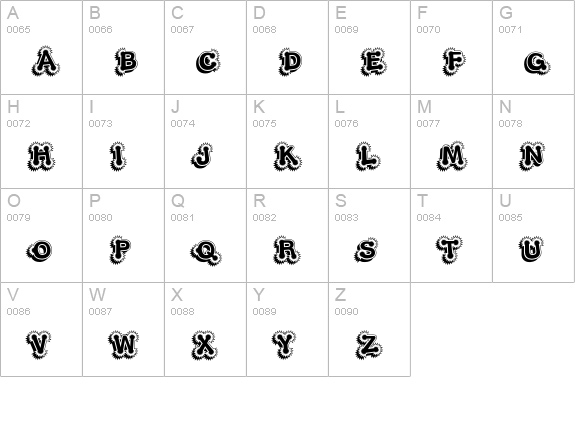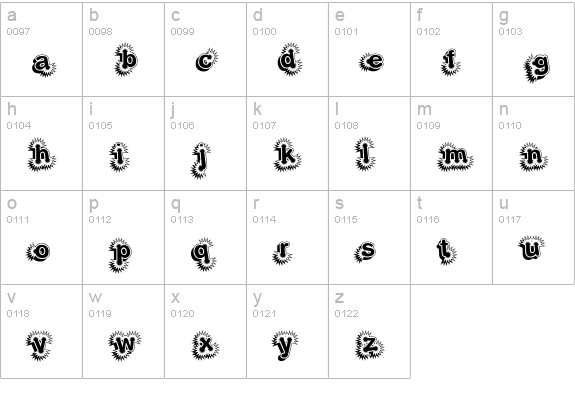
ElliottsJigsawDropshadow Font Details
ElliottsJigsawDropshadow font is a unique and eye-catching typeface that combines boldness with a touch of whimsy. Its intricate jigsaw puzzle-inspired design adds a playful element to any project, making it perfect for logos, headlines, and other creative designs. The drop shadow effect gives the characters depth and dimension, making them stand out on any background. Best of all, ElliottsJigsawDropshadow font is completely free to download at FontsMarket.com. Whether you're a designer looking to add a fun twist to your work or a hobbyist exploring new typography options, this font is a must-have in your collection. Don't miss out on the opportunity to enhance your projects with this delightful and versatile typeface. Download ElliottsJigsawDropshadow font today and let your creativity shine!